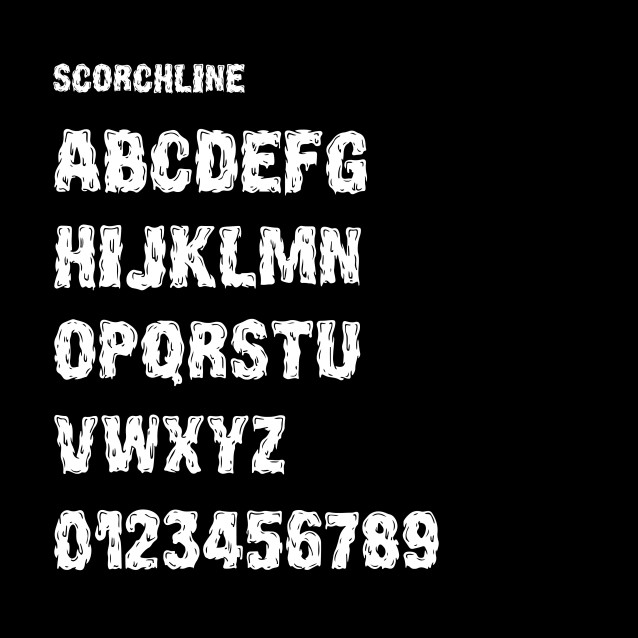
Scorchline Display Font
Scorchline Display Font, perfectly fit for branding, logo, wedding things, greeting cards, fashion, lookbook, marketing promotion, anytime you want to look fancy elegant but still casual.